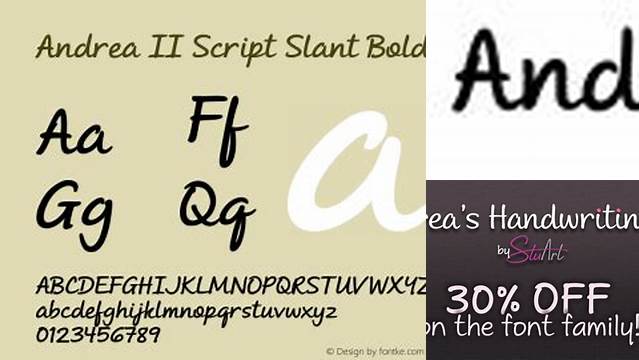
Hey guys! Are you ready to dive into the world of beautiful typography? Today, we're going to explore the Andrea Handwriting II Script, a fantastic font that's perfect for adding a personal touch to your projects. This script font offers a unique blend of elegance and readability, making it ideal for various applications. And the best part? You can get it as a free download! Let's get started and see how you can incorporate this amazing font into your creative endeavors!
What Makes Andrea Handwriting II Script Special?
First off, let's talk about what makes the Andrea Handwriting II Script stand out. This font is more than just letters; it's a statement. Its design is a delicate balance of tradition and modernity, with a touch of playfulness that grabs your attention. The slant gives it a dynamic feel, as if each word is dancing across the page. And, the bold version? Well, it just screams confidence and emphasis! The design is the brainchild of a talented designer who understood the power of a well-crafted script font. You can immediately tell that a lot of thought and care went into every curve and flourish. It's the kind of font that makes your work look professional yet approachable. The font’s versatility is another key feature. Whether you're crafting a logo, designing invitations, or simply sprucing up a social media post, Andrea Handwriting II Script fits the bill. It’s also super-legible, even in smaller sizes, which is a huge plus for any design project. Let's face it, the world is full of fonts, but finding one that truly resonates with your personal style is rare. This font provides that unique aesthetic. Its handwritten feel makes it warm and inviting, which is perfect for designs that aim to connect with an audience. This font feels authentic and human. It's not just another digital tool; it's an extension of your creative voice. This font comes in different weights, so you can choose the one that best suits your needs. From light and airy to bold and striking, there is a weight for every occasion. And, of course, the free download is a huge incentive, especially for those of us on a budget! So, whether you're a seasoned designer or a newbie, this font is a must-have in your collection. It's easy to install and a breeze to use. The font has a clean and modern look. The font includes all the necessary characters, including numbers and special symbols. It is also compatible with a wide range of software and operating systems, making it accessible to everyone.
Key Features and Benefits:
- Slanted Design: Gives a dynamic and flowing look.
- Bold Weight: Adds emphasis and impact.
- Versatile: Suitable for various projects.
- High Readability: Ensures your message is clear.
Where Can You Use Andrea Handwriting II Script?
So, you've got this amazing font, but where do you actually use it, right? The beauty of the Andrea Handwriting II Script is its adaptability. Let's brainstorm some awesome applications. First up, let's think about branding. If you're starting a new business or revamping an existing one, this font can give your brand a unique identity. It's perfect for logos, business cards, and even website headers. It exudes a friendly and approachable vibe. Next, consider the world of invitations. Weddings, birthdays, baby showers – you name it! The Andrea Handwriting II Script adds a personal touch that mass-produced fonts can't match. It's like sending a handwritten note, but in digital form. Then there are social media graphics. In a world dominated by images, your font choice is crucial. Use it to create eye-catching quotes, announcements, or simply to add a touch of personality to your posts. Plus, it looks great on Instagram, Facebook, or any platform you choose. Speaking of which, think about creating stunning graphics for your blog or website. It will help you stand out from the crowd. The font is perfect for creating headings, pull quotes, or even entire articles. And let's not forget about print materials! Brochures, flyers, posters – the possibilities are endless. The bold version of the font really pops and grabs attention. Another great idea is creating personalized gifts. Think about designing custom cards, mugs, or even t-shirts using this font. It's an excellent way to create memorable gifts that show your love and care. When it comes to design, be sure to maintain consistency. This means using the font consistently across all of your design pieces. Doing this will strengthen your brand identity and make it easier for people to recognize your work. There are many online resources to help you master typography, and remember to experiment! Try out different font sizes, colors, and layouts to see what works best for you. The Andrea Handwriting II Script is a great choice for making your content stand out. The font will bring a touch of elegance to your designs.
Project Ideas:
- Logo Design: Create a unique brand identity.
- Invitations: Personalize your special events.
- Social Media Graphics: Enhance your online presence.
- Print Materials: Design eye-catching brochures and posters.
- Personalized Gifts: Create memorable custom items.